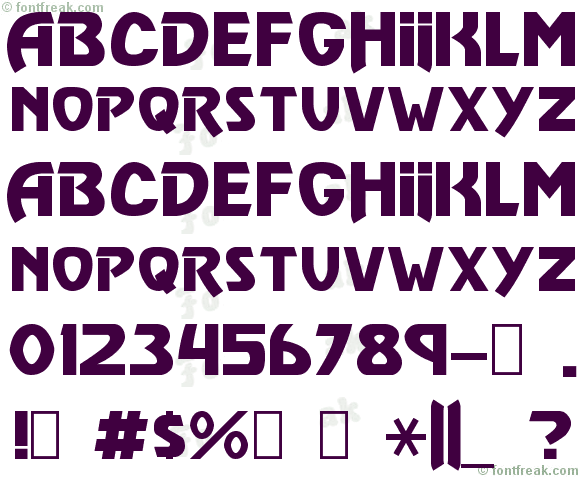
Vulgar Display Regular
About Vulgar Display
Vulgar Display by Digital Graphic Labs is a striking display font that captures attention with its bold and unconventional style. Released in 1998, this freeware typeface is characterized by its exaggerated strokes and unique letterforms that blend a sense of rebellion with artistic flair. The font showcases a medium stroke weight and varying contrast that evoke a playful yet assertive aesthetic, making it ideal for projects that require a touch of drama and personality. The spacing between characters is thoughtfully designed to enhance readability while maintaining an impactful presence.
This font is particularly suited for use in eye-catching applications such as movie posters, where its distinctive style can convey the energy and theme of the film. It also works well for album covers, helping to create a memorable branding experience for musicians. For small business owners, utilizing Vulgar Display in restaurant menus or promotional materials can attract customers with its bold and engaging design. Graphic designers will appreciate its versatility in crafting dynamic advertisements or event flyers that stand out in a crowded marketplace.
Targeted towards creative professionals, including graphic designers, small business owners, and content creators, Vulgar Display offers a unique typeface option that breaks away from conventional design norms. Its character and attitude make it a valuable addition to any designer's toolkit, inviting experimentation and innovation in visual communication.
What sets the Vulgar Display font apart is its ability to convey both an edgy and artistic vibe, allowing users to express bold ideas effectively. Whether you are looking to make a statement in your next project or simply wish to explore a font that pushes design boundaries, the Vulgar Display font free download is an excellent choice that promises to elevate your creative endeavors.